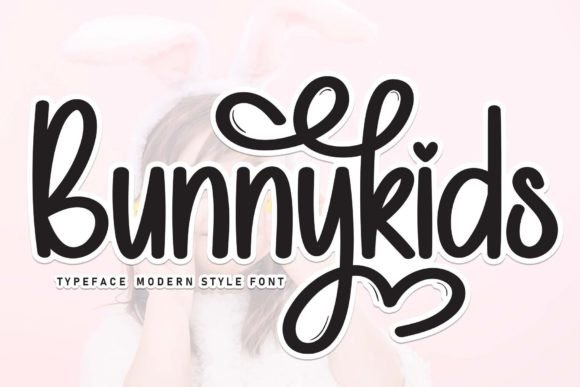
Introducing Bunnykids Font, the epitome of elegance and grace in the world of script fonts. Created by the talented artists at Misterletter.co, this delicate and flowing handwritten font is bound to captivate your senses and elevate your designs to new heights.
With its beautiful and well-balanced characters, Bunnykids Font is the perfect choice for T-shirt design enthusiasts. It effortlessly blends style and sophistication, making it a must-have for anyone looking to create eye-catching and memorable designs.
Whether you're designing for a casual event or a special occasion, Bunnykids Font has the versatility to adapt to any project. Its seamless flow and intricate details lend a touch of elegance, ensuring that your designs stand out from the crowd.
Embrace the power of Bunnykids Font and unlock a world of creativity. Its timeless appeal and unique charm will leave a lasting impression on your audience. Imagine the impact of a beautifully designed T-shirt, adorned with this exquisite font. It's the perfect way to express your individuality and make a statement.
Let your imagination run wild as you explore the endless possibilities Bunnykids Font offers. From inspiring quotes to catchy phrases, this font will bring your words to life with a touch of sophistication. Your designs will exude a sense of professionalism and creativity that is sure to leave a lasting impression.
Whether you're a seasoned designer or just starting your journey, Bunnykids Font is the ideal companion. Its user-friendly nature allows for easy integration into your design process, saving you time and effort. Say goodbye to monotonous fonts and embrace the allure of Bunnykids Font.
In summary, Bunnykids Font is the ultimate choice for anyone seeking the best fonts for T-shirt design. Its delicate and flowing script, combined with its versatility and timeless appeal, make it a must-have for designers of all levels. Step into a world of elegance and creativity with Bunnykids Font – your designs will never be the same again.